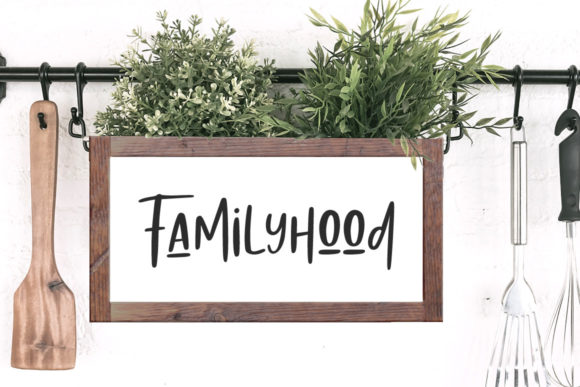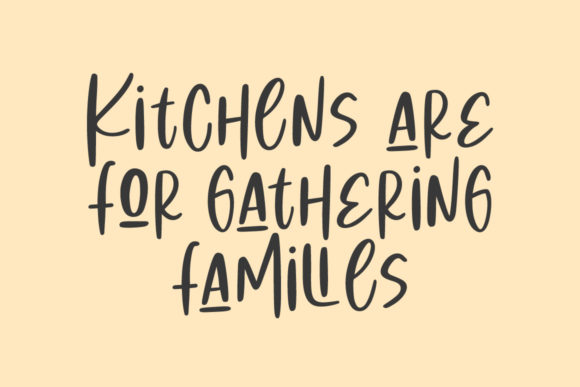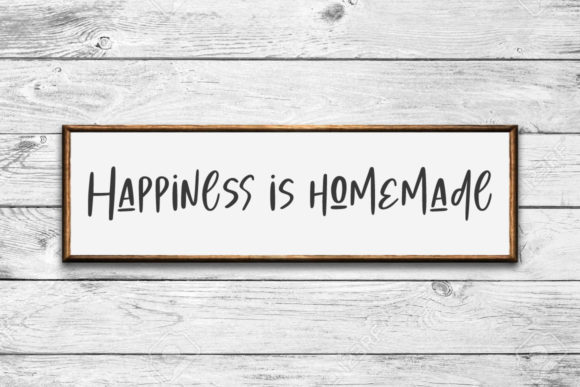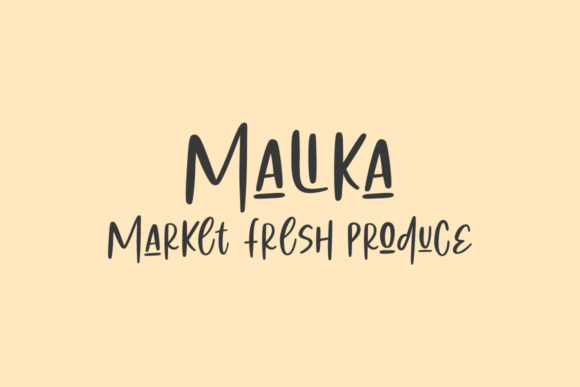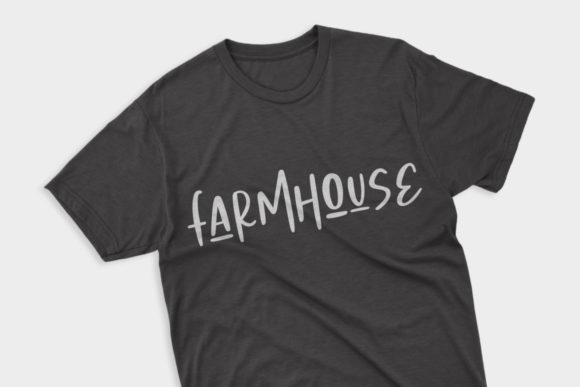
About Love Summer Font
Love Summer is a cool, relaxed and friendly handwritten font, that can be used for all chalkboard quotes or teaching material! Its authentic look and feel will add a personal and realistic feel to your designs.